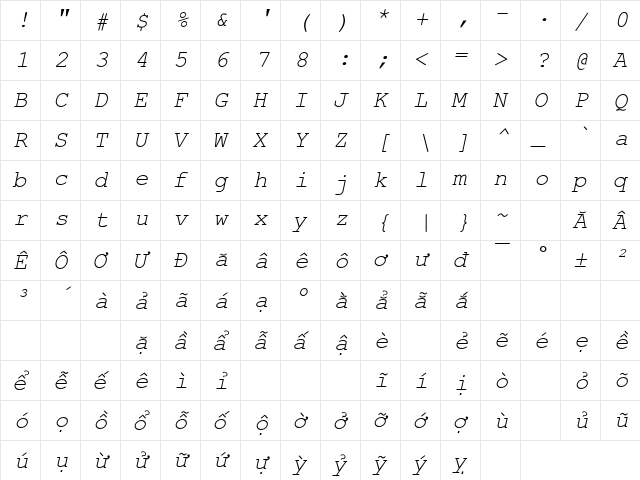
.VnCourier New Italic
Design Context for .VnCourier New Typeface
.VnCourier New brings the precise, column-aligned rhythm of monospaced typography to designs that value technical clarity and systematic order. Its italic angle brings a sense of urgency and motion to the letterforms.
Pro Tip: Use .VnCourier New with slightly increased line-height for extended reading — fixed-width spacing can feel dense in longer passages without extra breathing room.